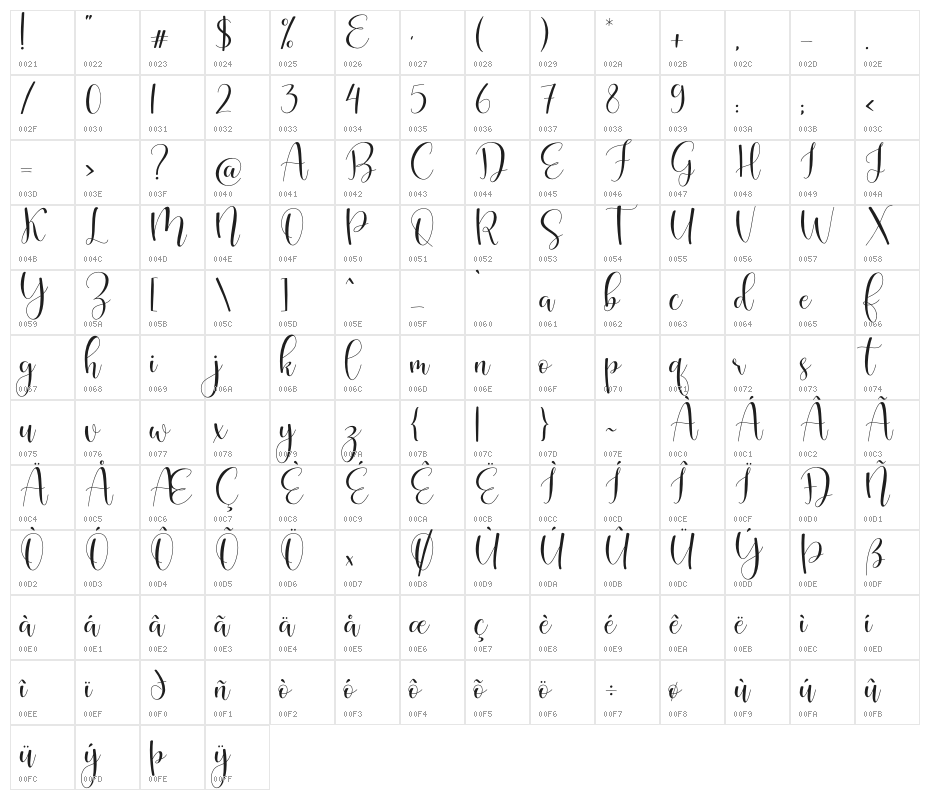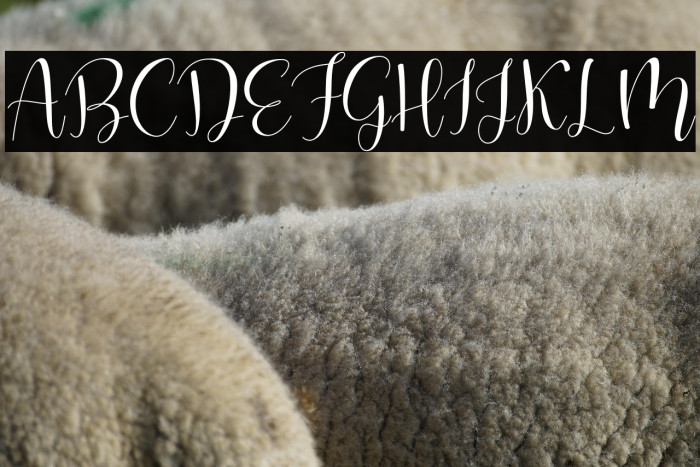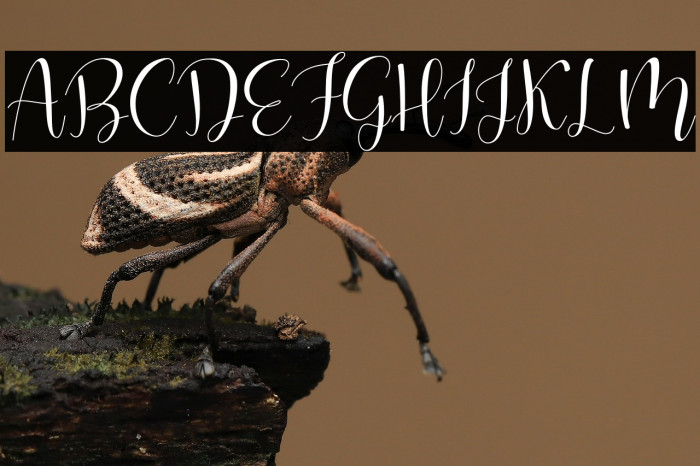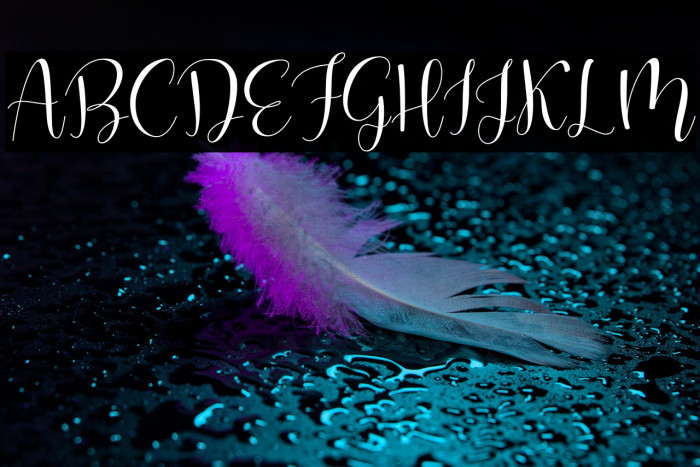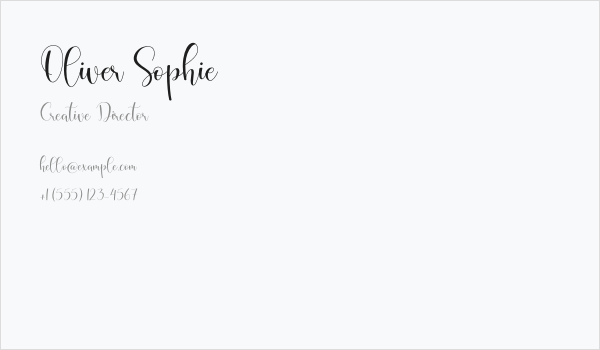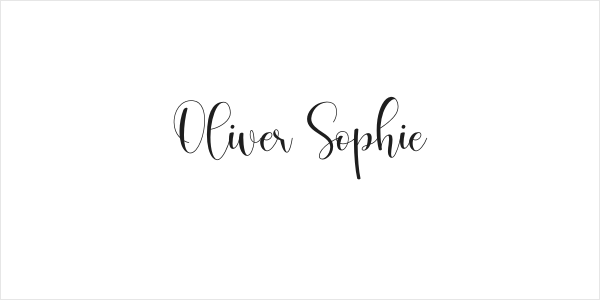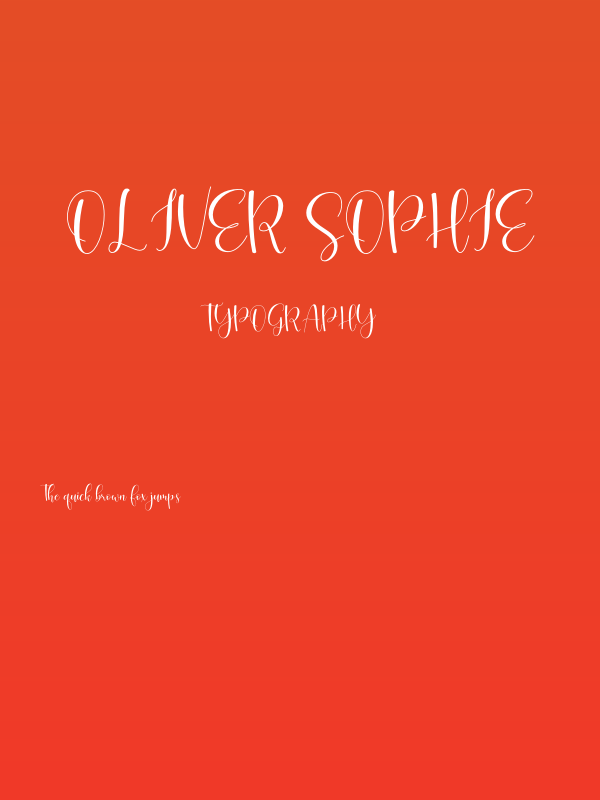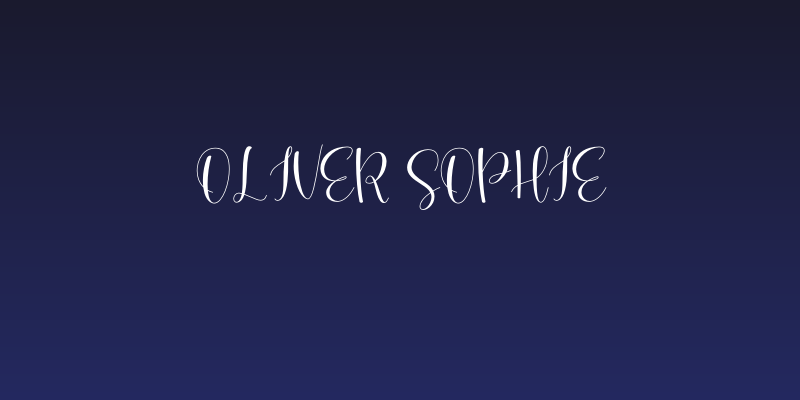
Oliver Sophie Font
Oliver Sophie Description
This elegant script font features flowing, cursive letters with a modern twist. The uppercase letters are tall and slender, with graceful loops and swirls that add a touch of sophistication. The lowercase letters are more compact, maintaining the fluidity and elegance of the script. Numbers and special characters are designed with the same attention to detail, ensuring consistency throughout. The font's overall appearance is both stylish and approachable, making it suitable for a variety of design projects.
| Proposed Projects | Ideal for wedding invitations, branding, greeting cards, and elegant packaging. |